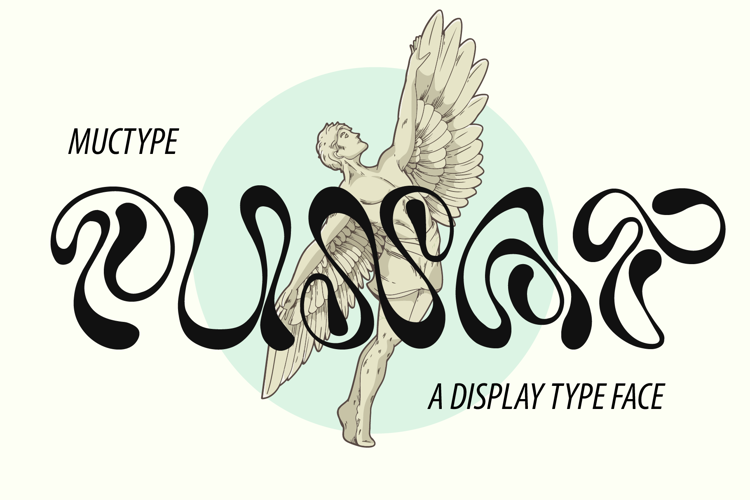
Punat Font
Punat Psychedelic Font - This font would be perfect for photography, watermarks, social media posts, advertisements, logos & branding, invitations, product design, labels, stationery, product packaging, special events, and other projects. This font is PUA encoded which means you can access all glyphs with ease!